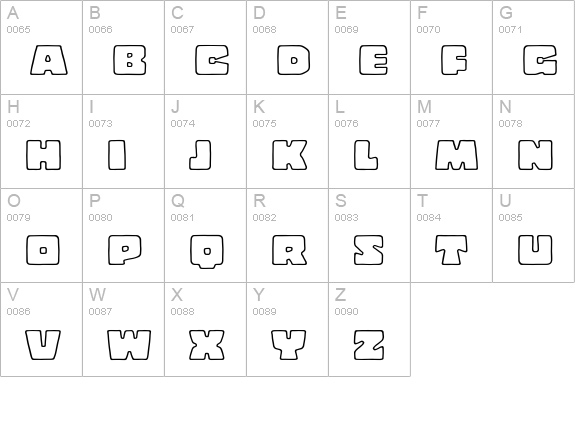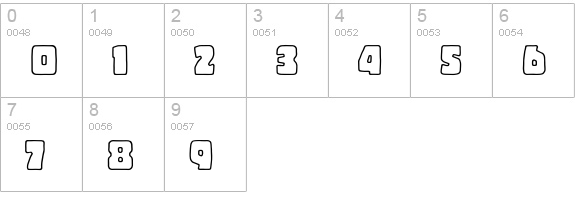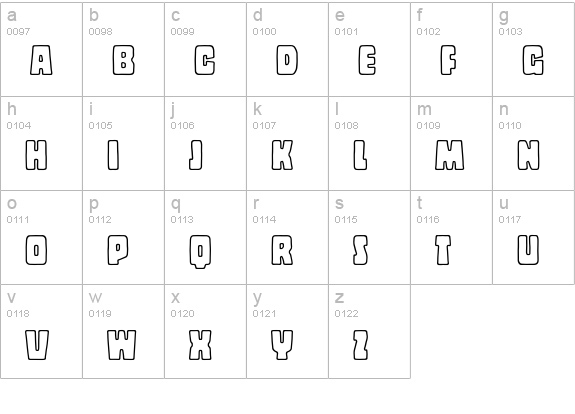
Copal Std Outline Font Details
Copal Std Outline font is a stylish and modern typeface that adds a touch of sophistication to any design project. The clean lines and sleek appearance of this font make it perfect for a wide range of applications, from branding to editorial design. The outline style adds a unique visual appeal, making your text stand out in a subtle yet eye-catching way. What's even better is that Copal Std Outline font is available for free download at FontsMarket.com. You can easily access this high-quality font and use it in your projects without any cost. Whether you're a designer, a student, or a hobbyist looking to enhance your creations, Copal Std Outline font is a versatile and elegant choice that will surely elevate your designs. Download it today and add a touch of sophistication to your typographic repertoire.